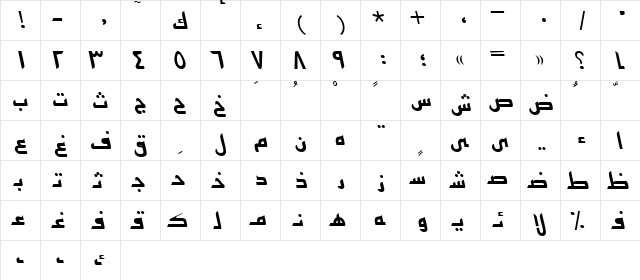
Arabic7KufiSSK Italic
Design Context for Arabic7KufiSSK Typeface
Arabic7KufiSSK takes a measured approach to typography — its balanced proportions and neutral character make it a reliable workhorse for both digital and print work. The slanted form adds forward momentum and visual energy.